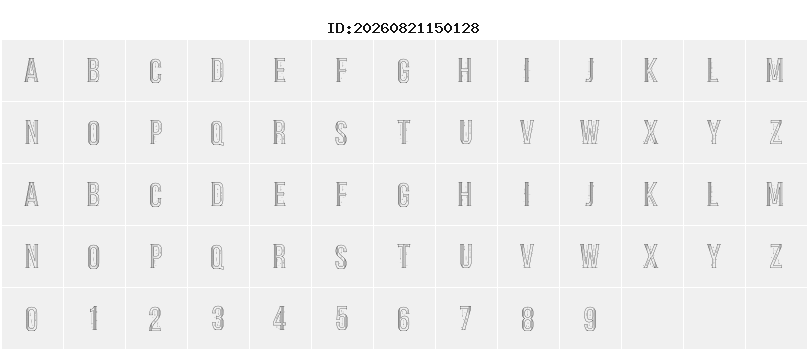
• Font Name: Sea Font
• Full Font Name: Sea Font Regular
About Sea Font.ttf
Sea Font.ttf is a modern, elegant sans-serif font designed for ultimate readability and visual harmony. Perfect for branding, headlines, web design, and print materials.